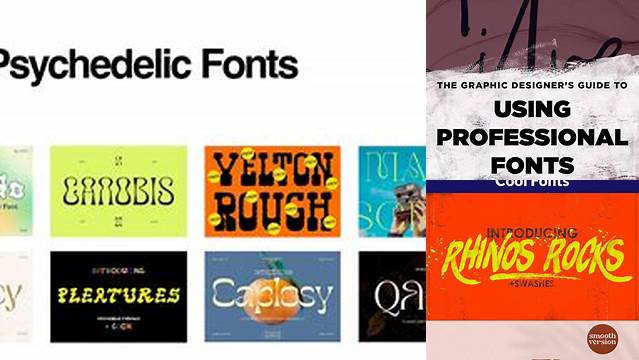
Awesome Fonts: A Designer's Guide
Fonts, guys, are the unsung heroes of design. They set the tone, convey the message, and can make or break your project. So, let's dive into the world of awesome fonts and explore how to choose, use, and generally rock them!
H2: What Makes a Font 'Awesome'?
What exactly makes a font awesome? It's not just about looking pretty, though that helps! An awesome font is versatile, readable, and fits the project's overall aesthetic. Think about it: a playful, bubbly font might be perfect for a children's book, but a terrible choice for a legal document. Awesome fonts also have well-designed letterforms, consistent weight and spacing, and a wide range of characters (including numerals, punctuation, and special symbols). The best awesome fonts often come with multiple weights and styles, giving you even more flexibility. Ultimately, an awesome font enhances your design and communicates effectively with your audience. You want something that speaks volumes without shouting, something that's both functional and aesthetically pleasing. Keep an eye out for fonts that are well-crafted, versatile, and appropriate for the task at hand. With a little searching, you'll find plenty of awesome fonts to elevate your designs.
H2: Exploring Different Font Styles
The world of awesome fonts is incredibly diverse. Serif fonts, with their little feet, often convey tradition and authority. Think Times New Roman or Garamond – perfect for formal documents or classic book designs. Sans-serif fonts, on the other hand, are clean and modern. Arial and Helvetica are popular choices for websites and contemporary branding. Script fonts mimic handwriting and add a touch of elegance or playfulness. But be careful; they can be tricky to read in large blocks of text. Display fonts are designed for headlines and short bursts of text. They're often bold and eye-catching, and they can be a great way to add personality to your designs. Finally, monospace fonts, where each character takes up the same amount of horizontal space, are often used for coding and technical documents. Understanding these different styles is key to choosing the right awesome font for your project. Experiment with different combinations and see what works best for you. Remember, the goal is to create a visual hierarchy that's both appealing and easy to navigate. The right awesome fonts can make all the difference.
H2: Where to Find Awesome Fonts
Finding awesome fonts is easier than ever these days! Google Fonts is a fantastic resource for free, open-source fonts that you can use on your website or in your designs. Font Squirrel is another great option for free fonts, and they also offer a font identifier tool that can help you identify fonts you see in images. For paid fonts, check out MyFonts, Adobe Fonts (if you have an Adobe Creative Cloud subscription), and Fontshop. Creative Market is also a great place to find unique and handcrafted fonts from independent designers. When browsing for fonts, pay attention to the font's overall aesthetic, its readability, and its versatility. Look for fonts that come with multiple weights and styles, so you have more options to work with. And don't be afraid to experiment with different combinations of awesome fonts to see what works best for your project. There are awesome fonts waiting to be discovered, so get out there and explore!
H2: Font Pairing: The Art of Combination
Font pairing is the art of combining two or more awesome fonts in a way that's visually appealing and enhances the overall design. The goal is to create contrast and hierarchy while maintaining a sense of harmony. A common approach is to pair a serif font with a sans-serif font. For example, you could use a serif font for headlines and a sans-serif font for body text. Or vice versa. Another strategy is to choose fonts from the same family but with different weights or styles. This can create a subtle but effective contrast. When pairing fonts, pay attention to their x-height, which is the height of the lowercase letters. Fonts with similar x-heights tend to pair well together. Also, consider the overall tone and personality of the fonts. Do they complement each other, or do they clash? Don't be afraid to experiment and try different combinations. There are no hard and fast rules when it comes to font pairing, but the key is to create a visual hierarchy that's easy to read and aesthetically pleasing. Using awesome fonts effectively is an art form.
H2: The Importance of Readability
Readability is paramount when choosing awesome fonts, especially for body text. A font may look beautiful, but if it's difficult to read, it's not a good choice. Consider factors such as the font's x-height, letter spacing, and contrast. Fonts with a larger x-height tend to be more readable, as do fonts with generous letter spacing. Avoid fonts with very thin strokes or overly ornate details, as these can be difficult to read, especially on screen. Test your font choices by printing out a sample of text and reading it in different lighting conditions. Also, test it on different devices and screen sizes. What looks good on your computer may not look so great on a mobile phone. Choose awesome fonts that are easy on the eyes and don't cause fatigue.
H2: Font Sizes and Hierarchy
Font size plays a crucial role in creating visual hierarchy and guiding the reader's eye through your design. Use larger font sizes for headlines and subheadings to draw attention to the most important information. Use smaller font sizes for body text and captions. Establish a clear hierarchy by varying the font size, weight, and style of different elements. For example, you could use a bold, larger font for headlines and a regular-weight, smaller font for body text. This will help readers quickly scan the page and understand the structure of your content. Consider using a modular scale to create a consistent and harmonious relationship between different font sizes. A modular scale is a set of predefined ratios that you can use to determine the size of your fonts. This can help you create a more professional and polished design. Using awesome fonts with different sizes effectively can do wonders.
H2: Kerning, Tracking, and Leading
Kerning, tracking, and leading are essential typographic adjustments that can significantly impact the readability and visual appeal of your text. Kerning refers to the spacing between individual letters. Adjusting the kerning can help to create a more even and balanced appearance. Tracking refers to the overall spacing between all the letters in a word or line of text. Increasing the tracking can make text more airy and readable, while decreasing the tracking can make text more compact. Leading refers to the vertical spacing between lines of text. Adjusting the leading can help to improve readability and prevent lines of text from overlapping. Experiment with these settings to fine-tune the appearance of your awesome fonts and create a more polished and professional design.
H2: Font Weight and Style Variations
Awesome fonts often come in a variety of weights and styles, such as light, regular, bold, italic, and condensed. Using these variations can help you create visual hierarchy, emphasize important information, and add visual interest to your designs. Use bold weights for headlines and subheadings to draw attention to the most important information. Use italic styles for emphasis or to indicate quotations. Use light weights for captions or secondary text. Experiment with different combinations of weights and styles to see what works best for your project. Just be careful not to overdo it, as too many variations can create a cluttered and confusing design. Using awesome fonts with care is key!
H2: Web Fonts: Optimizing for the Web
When using awesome fonts on the web, it's important to optimize them for performance. Large font files can slow down your website, which can negatively impact user experience. Use web-safe fonts whenever possible, as these fonts are pre-installed on most computers and devices. If you need to use a custom font, use a web font service like Google Fonts or Adobe Fonts. These services optimize fonts for the web and deliver them efficiently to your users. Also, consider using font subsets, which are smaller versions of the font that only contain the characters you need. This can significantly reduce the file size of your fonts. Remember that using awesome fonts on the web requires a little extra thought.
H2: Font Formats: TTF, OTF, WOFF
Understanding different font formats is important for using awesome fonts effectively, especially on the web. TTF (TrueType Font) and OTF (OpenType Font) are the most common font formats for desktop applications. WOFF (Web Open Font Format) is a font format specifically designed for the web. WOFF fonts are compressed and optimized for faster loading times. WOFF2 is the next-generation web font format, offering even better compression and performance. When using fonts on the web, it's best to use WOFF or WOFF2 formats whenever possible. These formats will ensure that your fonts load quickly and reliably on all devices. Using the right format makes awesome fonts even better!
H2: Font Embedding: How to Do It Right
Font embedding refers to the process of including font files within a document or website. This ensures that the font will be displayed correctly, even if the user doesn't have the font installed on their computer. However, font embedding can also increase the file size of your document or website, so it's important to do it correctly. When embedding fonts, use a web font service like Google Fonts or Adobe Fonts, as these services optimize fonts for embedding. Also, consider using font subsets to reduce the file size of your embedded fonts. Using awesome fonts correctly is vital for a polished product.
H2: Font Management Tools
If you work with a lot of awesome fonts, a font management tool can be a lifesaver. Font management tools allow you to organize, activate, and deactivate fonts easily. They can also help you identify and resolve font conflicts. Some popular font management tools include FontExplorer X Pro, RightFont, and NexusFont. These tools can streamline your workflow and make it easier to find the right font for your project. With font management, awesome fonts become even more accessible.
H2: Creating Your Own Fonts
Creating your own awesome fonts can be a rewarding but challenging process. It requires a good understanding of typography and design principles. There are many font creation tools available, such as FontLab Studio, Glyphs, and RoboFont. These tools allow you to create and edit letterforms, adjust kerning and tracking, and generate font files in various formats. If you're serious about font design, consider taking a typography course or workshop to learn the fundamentals. Making awesome fonts is a true art.
H2: The Psychology of Fonts
Fonts have a powerful psychological impact on viewers. Different fonts evoke different emotions and associations. Serif fonts, for example, often convey tradition, authority, and trustworthiness. Sans-serif fonts, on the other hand, are often perceived as modern, clean, and friendly. Script fonts can add a touch of elegance or playfulness, while display fonts can be used to create a bold and attention-grabbing statement. When choosing awesome fonts, consider the message you want to convey and the emotions you want to evoke. The right font can help you connect with your audience on a deeper level.
H2: Font Trends: What's Hot Right Now?
Like fashion, font trends come and go. What's popular one year may be outdated the next. Some current font trends include geometric sans-serifs, retro-inspired fonts, and hand-drawn fonts. However, it's important to choose awesome fonts that are timeless and appropriate for your project, rather than just following the latest trends. A well-designed, classic font will always be a better choice than a trendy font that will look dated in a few years. While trends can be fun, stick with fonts that truly suit your purpose.
H2: Font Accessibility: Designing for Everyone
When choosing awesome fonts, it's important to consider accessibility. Some fonts are easier to read than others, especially for people with visual impairments. Choose fonts with a large x-height, generous letter spacing, and clear letterforms. Avoid fonts with overly thin strokes or ornate details, as these can be difficult to read. Also, provide sufficient contrast between the text and the background. Using awesome fonts responsibly means making them accessible to everyone.
H2: Best Fonts for Headlines
Headlines need fonts that grab attention and convey the message quickly. Bold sans-serif fonts like Montserrat, Bebas Neue, and Raleway are excellent choices. Serif fonts with strong personalities, such as Playfair Display or Merriweather, can also work well. The best awesome fonts for headlines are those that are clear, concise, and visually impactful.
H2: Best Fonts for Body Text
Body text requires fonts that are easy to read for extended periods. Classic choices include Open Sans, Lato, and Roboto (all sans-serif), as well as serif fonts like Times New Roman, Georgia, and PT Serif. Remember that awesome fonts for body text prioritize readability and legibility over stylistic flair.
H2: Fonts for Logos: Branding Essentials
Logo fonts are crucial for creating a strong brand identity. They should be unique, memorable, and representative of your brand's values. Consider fonts like Futura, Helvetica Neue, or custom-designed typefaces for a distinctive look. Choosing awesome fonts for logos requires careful consideration of your brand's personality.
H2: Script Fonts: Adding Elegance
Script fonts, mimicking handwriting, can add a touch of elegance and personality to your designs. However, they should be used sparingly, primarily for headings or decorative elements. Popular script fonts include Brush Script MT, Pacifico, and Lobster. Handle awesome fonts like these with care; too much can be overwhelming.
H2: Display Fonts: Making a Statement
Display fonts are designed for short bursts of text, such as posters or website headers. They are often bold, unique, and eye-catching. Examples include Impact, Cooper Black, and ChunkFive. Awesome fonts in this category are meant to make a statement, but should be used judiciously.
H2: Monospace Fonts: Coding and More
Monospace fonts, where each character occupies the same amount of horizontal space, are primarily used in coding and technical documentation. Courier New and Consolas are common choices. While not typically considered aesthetically beautiful, awesome fonts like these are essential for specific purposes.
H2: Geometric Fonts: Modern Simplicity
Geometric fonts, characterized by their clean lines and geometric shapes, convey a sense of modernity and simplicity. Futura, Century Gothic, and Montserrat are popular choices. These awesome fonts are versatile and work well in various design applications.
H2: Retro Fonts: Vintage Vibes
Retro fonts evoke nostalgia and vintage charm. They often feature bold, playful designs reminiscent of the mid-20th century. Examples include Bauhaus 93, ITC Avant Garde Gothic, and Lobster. Using awesome fonts from this era adds a unique touch to your projects.
H2: Hand-Drawn Fonts: Organic and Unique
Hand-drawn fonts add a personal and organic touch to your designs. They often mimic the look of handwriting or hand-lettering. These fonts are great for creating a friendly and approachable feel. When using hand-drawn awesome fonts, legibility should always be a consideration.
H2: Color and Fonts: A Visual Harmony
The color of your fonts can significantly impact their readability and visual appeal. Choose colors that provide sufficient contrast with the background. Dark text on a light background is generally the most readable option. Experiment with different color combinations to create a visual harmony that enhances your design. Awesome fonts paired with the right colors can really make a design pop.
H2: Font Animation: Adding Movement
Font animation can add movement and visual interest to your designs. Use animation sparingly, as it can be distracting if overdone. Subtle animations, such as fading or sliding effects, can be effective. Consider font animation for website headers or interactive elements. Animated awesome fonts can be a fun way to engage your audience.
H2: Combining Fonts with Images
When combining awesome fonts with images, ensure that the fonts complement the images and don't compete for attention. Choose fonts that match the overall style and tone of the images. Use font sizes and colors that create a visual hierarchy and guide the viewer's eye. With the perfect balance, fonts and images can work together harmoniously.